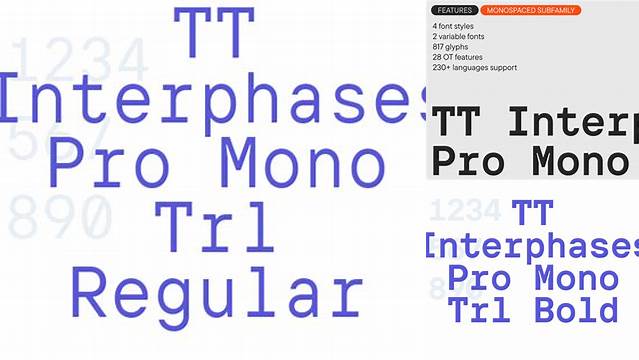
Hey guys! Are you on the hunt for a sleek, modern font that's also super readable? Well, look no further, because today we're diving deep into the world of TT Interphases Mono, a fantastic font that's available for free download! This article is your ultimate guide. We'll explore everything from where to snag it, how to use it, and why it's an excellent choice for a variety of projects. Ready to level up your design game? Let's get started!
TT Interphases Mono: A Comprehensive Overview
Alright, so first things first: What exactly is TT Interphases Mono? Developed by TypeType, this font is part of the larger TT Interphases family, but it stands out with its monospaced design. Monospaced fonts, for those who don't know, are fonts where each character takes up the same amount of horizontal space. This can be incredibly useful for code, tables, and anything where consistent spacing is key. The TT Interphases Mono font, like its siblings, boasts a clean, contemporary aesthetic. The font is designed with functionality in mind, ensuring that it looks great while also being incredibly readable. This font features a variety of weights and styles, making it adaptable to diverse design needs. Whether you're creating a website, designing a presentation, or just need a good font for writing, TT Interphases Mono could be your new go-to. The font is renowned for its clarity, making it perfect for both display and body text. The designers at TypeType have thought of everything, meaning TT Interphases Mono is a fantastic blend of form and function. Downloading the font is simple, and once you have it, you'll discover just how versatile it is. The font’s inherent legibility ensures it can be used across different platforms and media, enhancing your projects. This font is more than just a collection of characters; it's a design tool designed to make your work shine. It is the perfect solution for those who value both aesthetics and practicality. So, get ready to explore the wonderful world of TT Interphases Mono and unlock its full potential.
Key Features of TT Interphases Mono Font
So, what makes TT Interphases Mono stand out from the crowd? Let's break down some key features that make this font a great choice. First and foremost, the monospaced design. The consistent width of each character creates a clean, organized look, especially useful for coding, tables, and data-heavy documents. The clarity of the font is amazing! It is designed to be highly readable, making it perfect for long-form text and display purposes. The versatility of the font is great. It offers various weights and styles. You can customize your projects as needed. Support for multiple languages is also a great feature. This font likely supports a wide range of characters and glyphs, which is great for projects that have global audiences. The font's modern aesthetic is also great. TT Interphases Mono has a contemporary, minimalist design that fits well with current design trends. The design is suitable for various platforms. You can use it on websites, print materials, and digital documents. The font is well-kerned, meaning the spacing between characters is optimized for readability. It is also very accessible. This ensures the font is easy to read for everyone. These features come together to make TT Interphases Mono a powerful tool for designers and anyone who needs a functional and stylish font.
Monospaced Design Explained
Let’s dive a little deeper into the concept of a monospaced design. In a nutshell, a monospaced font is a font where every single character takes up the same horizontal space. Think of a typewriter; each letter occupies the same width, whether it's a thin 'i' or a wide 'W'. This consistent spacing is what defines a monospaced font and sets it apart from proportional fonts, where character widths vary. The consistency of monospaced fonts is what makes them perfect for specific applications. Coding, for example, relies heavily on alignment and clear distinctions between characters. Monospaced fonts provide that consistency, making code much easier to read and debug. They are also well-suited for tabular data, spreadsheets, and anything where columns and alignment are crucial. The uniform spacing makes it easy to visually organize information and follow rows and columns. The benefit is that your data or code looks structured and neat. Beyond practical applications, monospaced fonts can also have a unique aesthetic appeal. They often evoke a sense of structure, order, and precision. This makes them a great choice for designers looking to achieve a specific visual style. The key advantage of a monospaced design is its reliability. This is important when dealing with complex information or when clarity is paramount. TT Interphases Mono, with its monospaced design, is an excellent choice for any project where readability and structure are top priorities.
Different Weights and Styles in TT Interphases Mono
One of the best things about TT Interphases Mono is the variety of weights and styles it offers. This allows you to customize your designs and make them look exactly the way you want. The different weights include options like Light, Regular, Bold, and sometimes even Black. Each weight provides a different thickness to the font, making it easy to create visual hierarchy and emphasize important text. Lighter weights are great for body text, while heavier weights can be used for headlines or titles. The different styles can include Italics or Obliques. These are slightly slanted versions of the font that add a touch of dynamism and visual interest. The inclusion of italics is super useful for differentiating text or emphasizing certain words. Some font families also offer condensed or extended versions, which can be helpful if you have space limitations. If you are working on a project where you need to fit a lot of text into a small space, condensed versions are a great choice. The availability of different weights and styles gives you total control over the look and feel of your projects. It is easy to achieve various visual effects using them. You can create subtle or dramatic changes to your designs with just a few clicks. This adaptability makes TT Interphases Mono suitable for a wide range of design purposes, from website design to print media. With these options, you can craft a cohesive and visually appealing design. So, whether you're creating a simple document or a complex design, make use of the different weights and styles to make your work stand out.
Language Support and Glyphs
Another great aspect of TT Interphases Mono is the wide range of language support and glyphs it usually offers. This is super important if you are working on projects that need to reach a global audience. TT Interphases Mono typically supports multiple languages, including Latin, Cyrillic, and often Greek. Having good language support means you can use the font in documents, websites, and applications that are used in various regions and countries. This is key for international projects. Glyphs, or special characters, are also worth mentioning. A glyph is any character in a font, including letters, numbers, punctuation, and symbols. The more glyphs a font has, the more versatile it is. Check for support for currency symbols, mathematical symbols, and other special characters. This can make your designs more professional and functional. The wide range of characters means you can create designs that look right across different languages and cultures. This attention to detail is a sign of a well-designed font and shows it is created for real-world use. Always check the glyph support when choosing a font, especially if your project involves multiple languages. Using a font with comprehensive language support and a range of glyphs lets you reach a wider audience. Make sure all your users can fully understand your message. This is very important. So, make sure you know the language and glyph support before you begin! This is very important.
Using TT Interphases Mono in Your Projects
So, how can you actually use TT Interphases Mono in your projects? The possibilities are pretty much endless. Let's explore some common and creative uses. First off, consider it for coding. The monospaced design is perfect for writing code, making it easier to read and organize, leading to fewer errors. Use it in tables and data visualizations. The consistent spacing ensures your data is neat and easy to understand. You can also use it for website design. TT Interphases Mono is a great choice for web text. The monospaced design provides structure and readability. Another way to use the font is in print media. It is perfect for creating a professional look. You can use it in documents, presentations, or brochures. Try it out in digital documents, like PDFs or ebooks. The clean lines and high legibility ensure your content looks great on any screen. You can also be creative and use it for logos and branding. Its modern aesthetic can give your brand a unique and memorable look. It's easy to adapt TT Interphases Mono to your specific needs. Experiment with different weights and styles to create a custom look that fits your vision. Remember to always consider readability and your project's overall style. This ensures the font works well for your intended audience. With a little creativity, you can use TT Interphases Mono to enhance the design of just about any project. The design is very versatile and will become a staple of your collection.